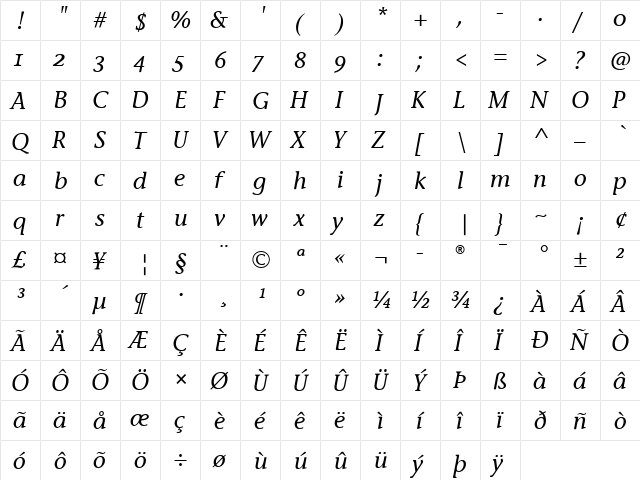
StoneInfOSITC Medium Italic
Design Context for StoneInfOSITC Typeface
StoneInfOSITC takes a measured approach to typography — its balanced proportions and neutral character make it a reliable workhorse for both digital and print work. The slanted form adds forward momentum and visual energy.
Pro Tip: Try StoneInfOSITC for annotation and caption copy alongside an upright companion — the contrast in angle creates a dynamic but ordered typographic system.